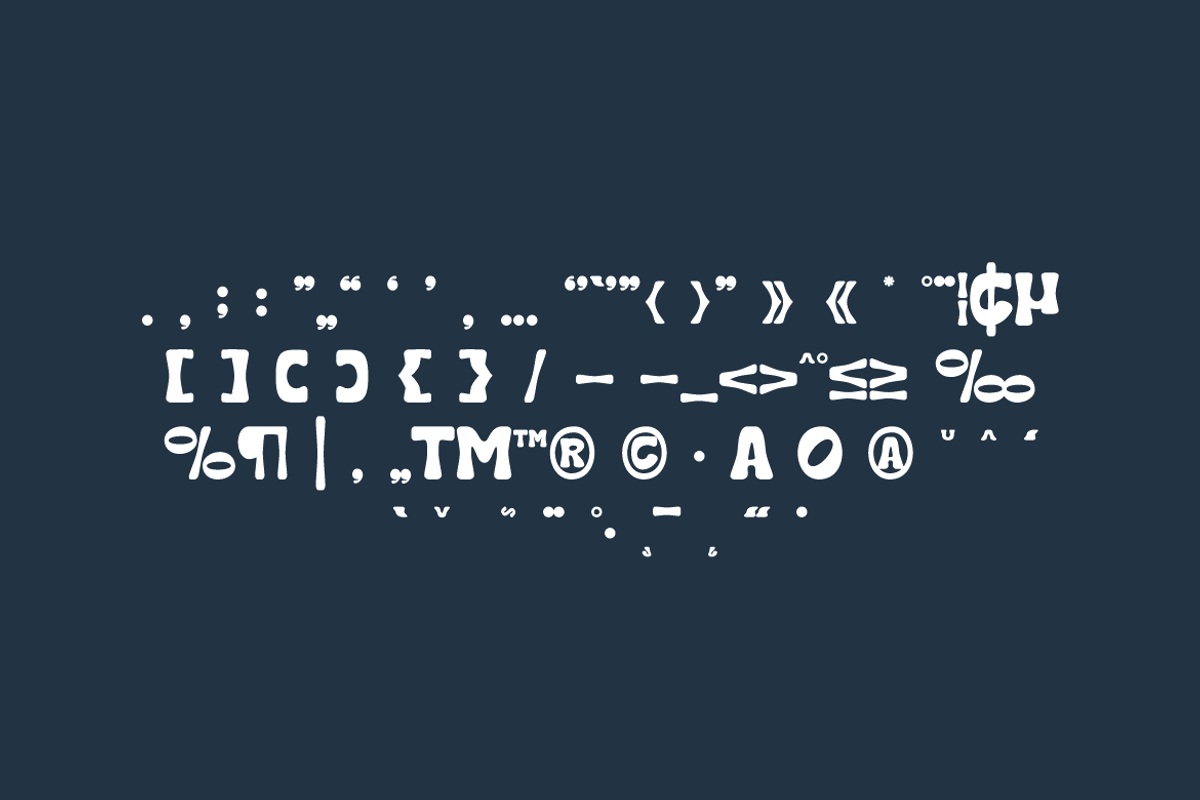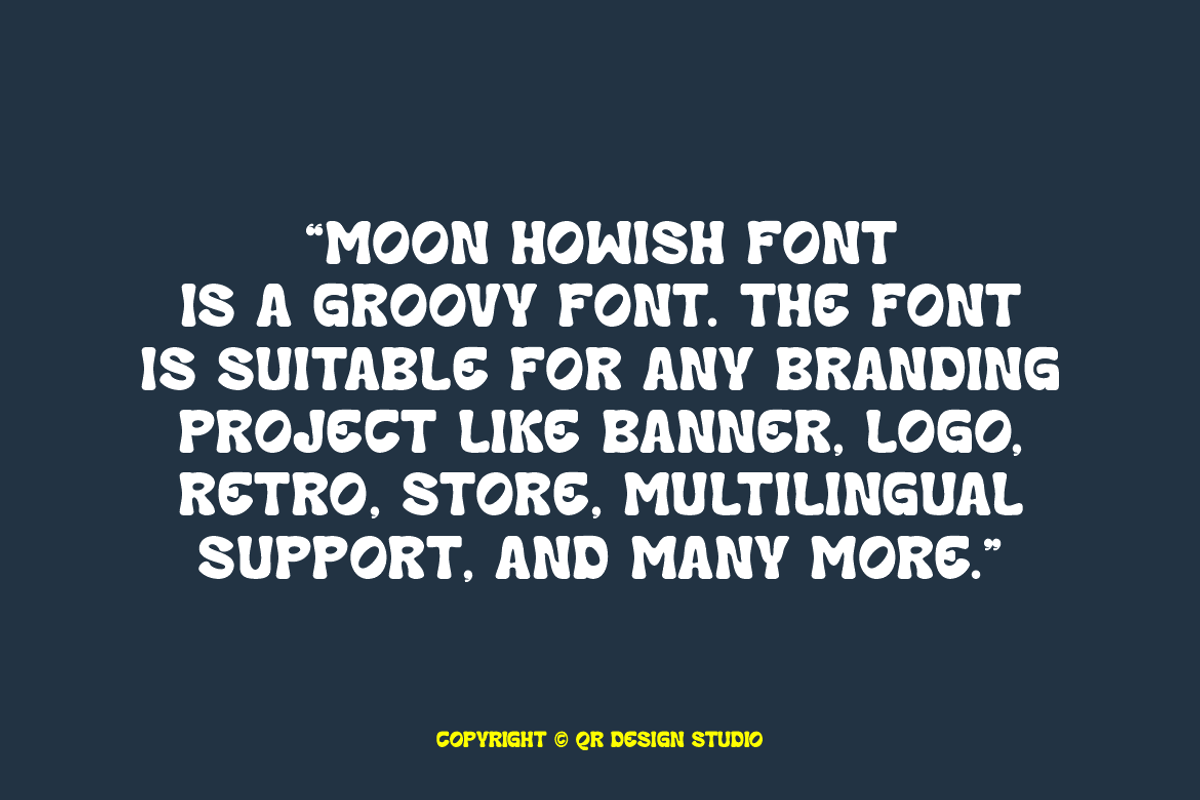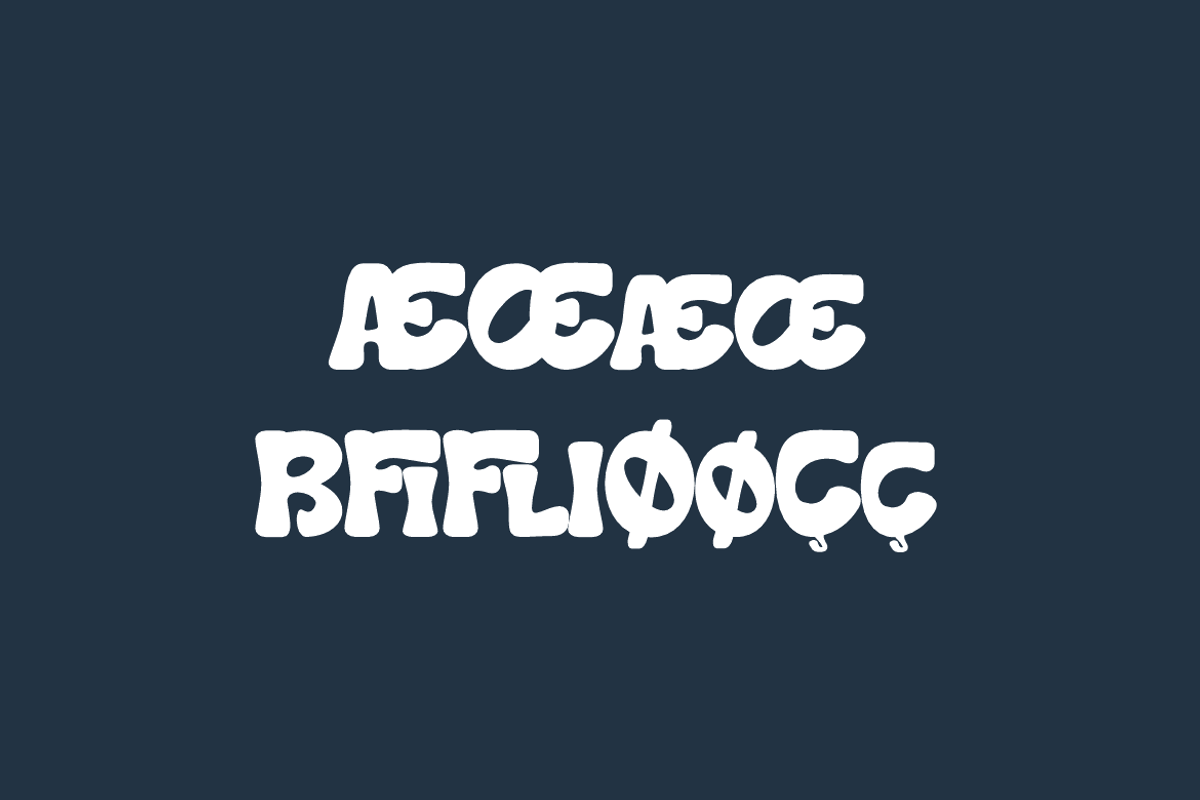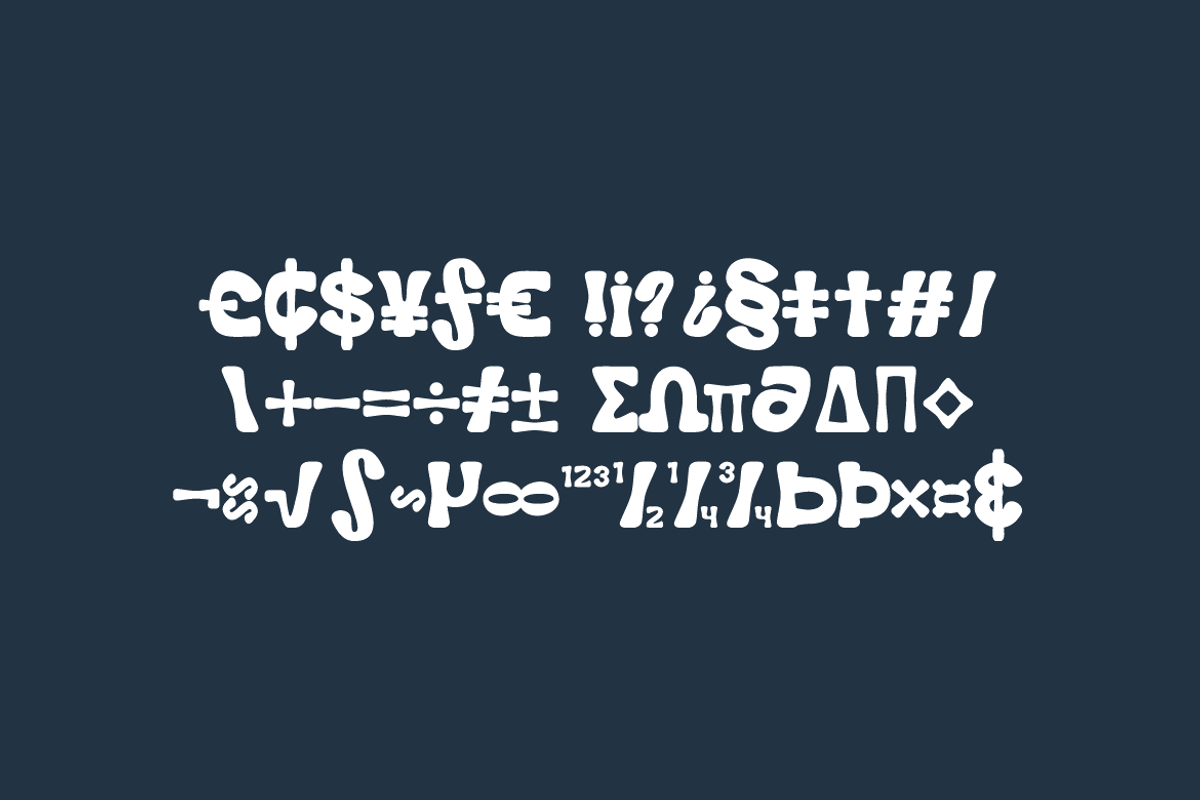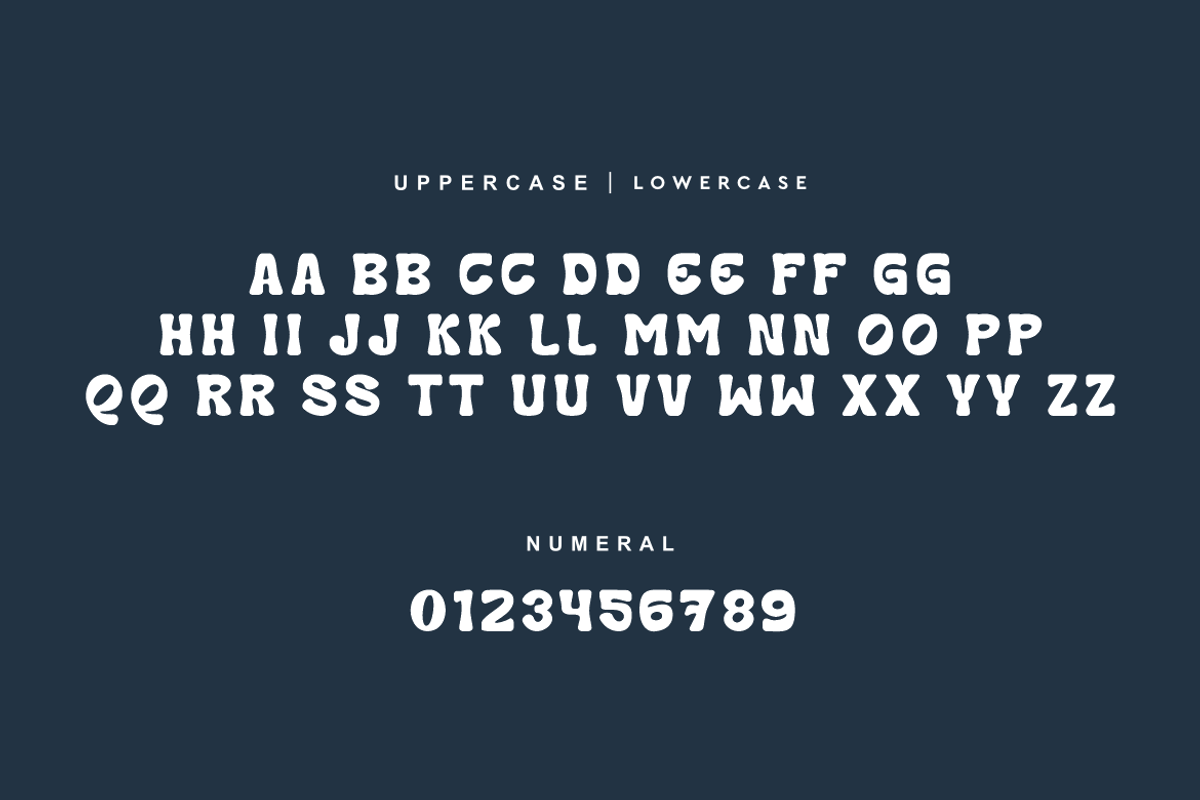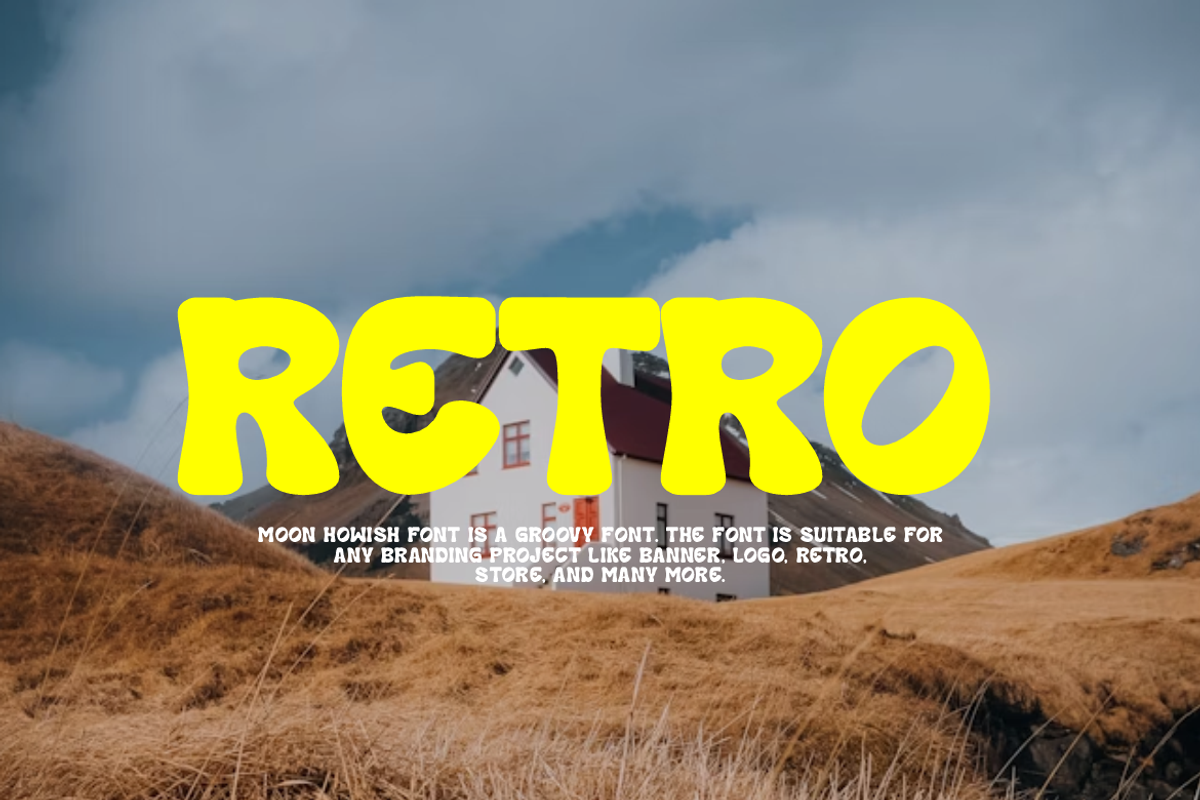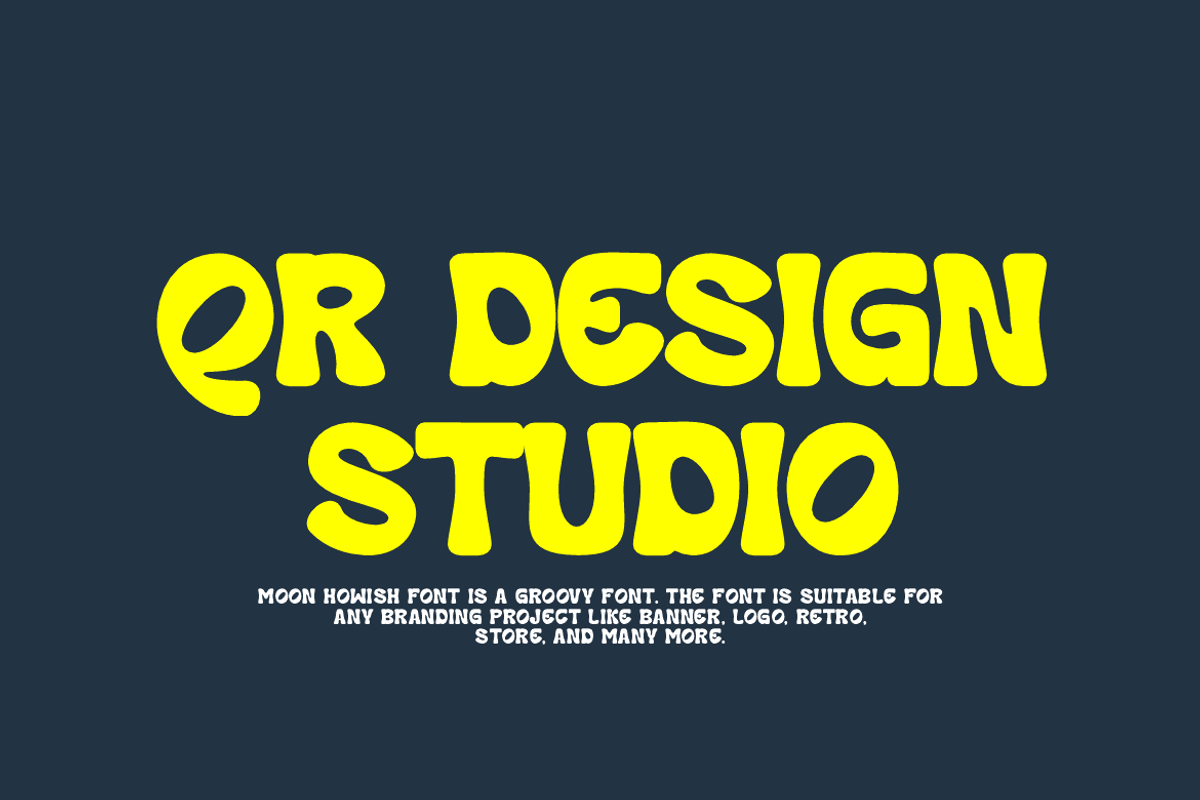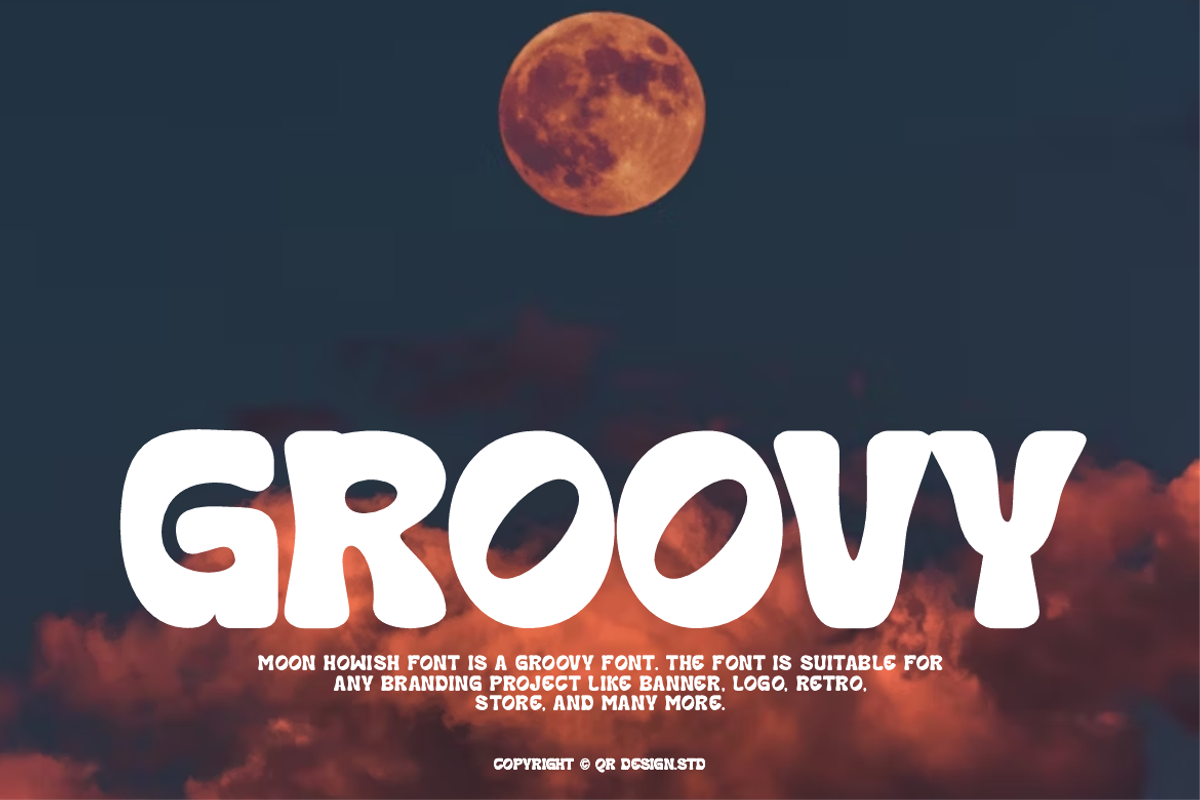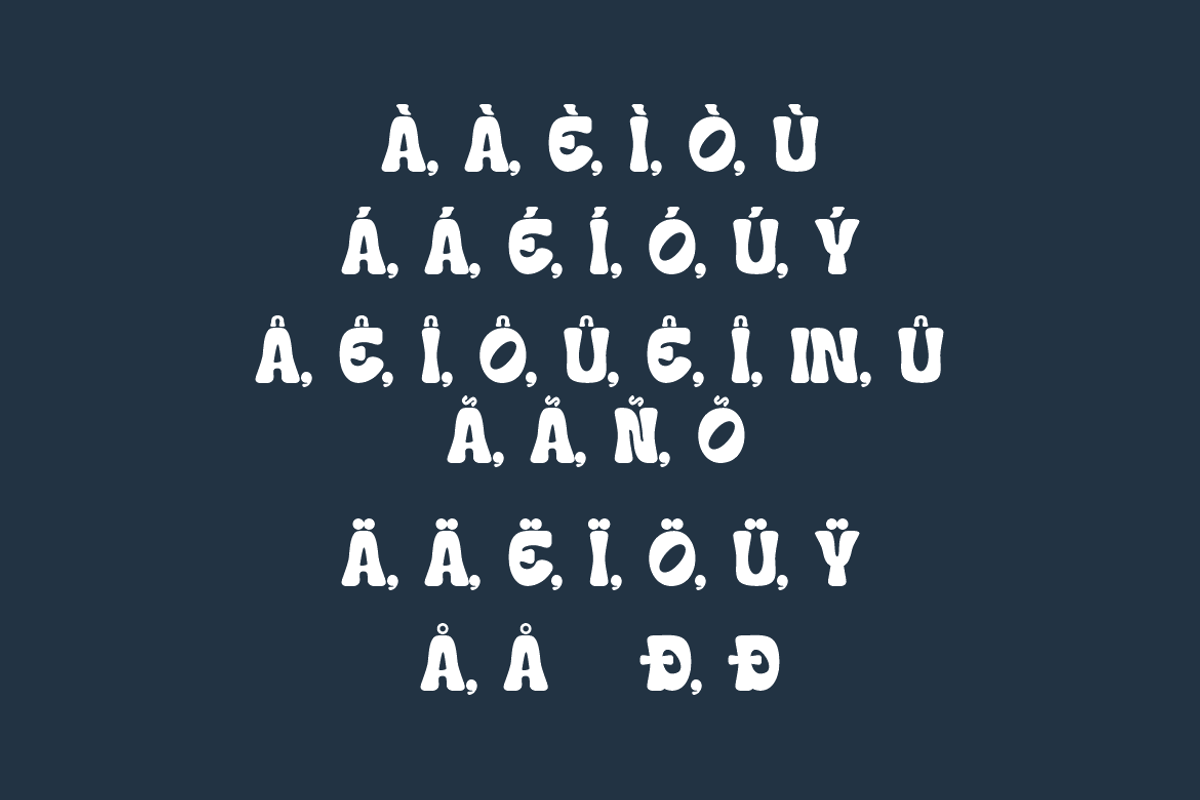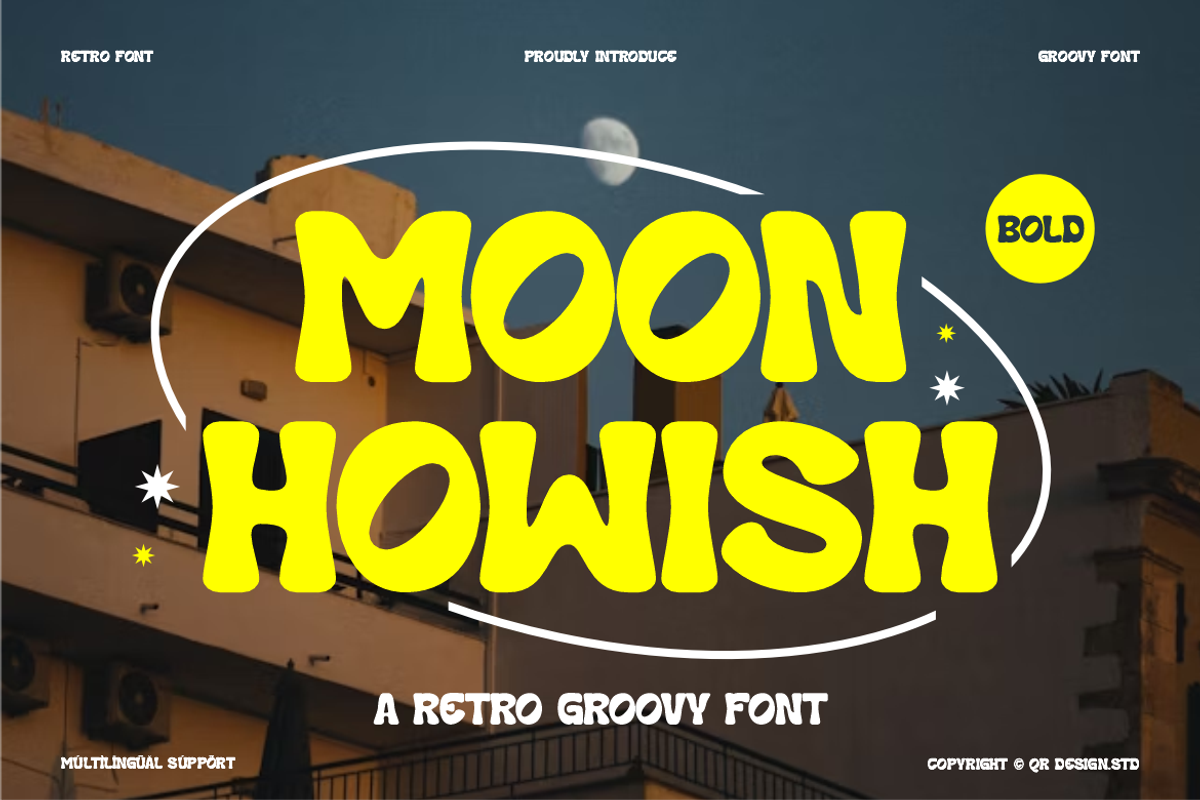
Moon Howish - Groovy Retro Font
Moon Howish Font is a groovy and authentic display font. The font is suitable for any branding project like poster, logo, retro, and many more. Outstanding in a wide range of contexts.